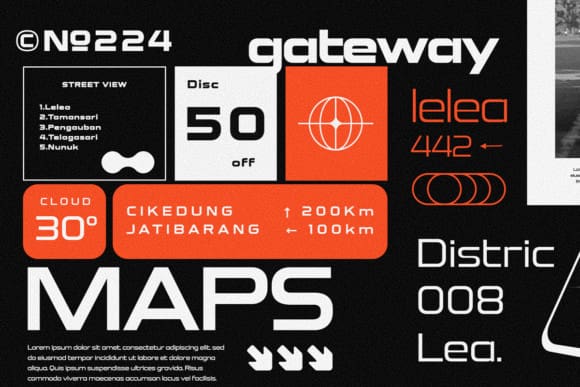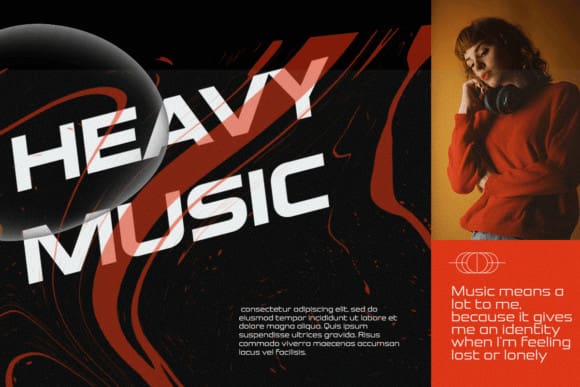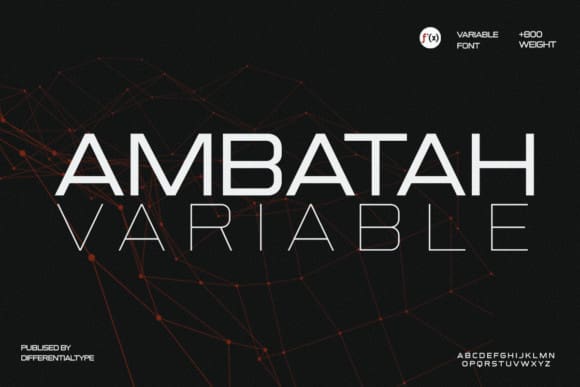
Ambatah Variable Font
Ambatah Variable Font, a versatile typeface designed to integrate seamlessly into your imaginative endeavors. This adaptable font is crafted to make your headlines steal the limelight, let your branding projects bloom, invigorate your logos, and elevate your creative outputs to new heights.
Ambatah offers a multifarious range of weight variations, from the subtly elegant thin to the commanding presence of extra bold, broadening your horizons to infinite pairing possibilities. Enrich your creative palette with Ambatah, the font designed to redefine boldness and sophistication.